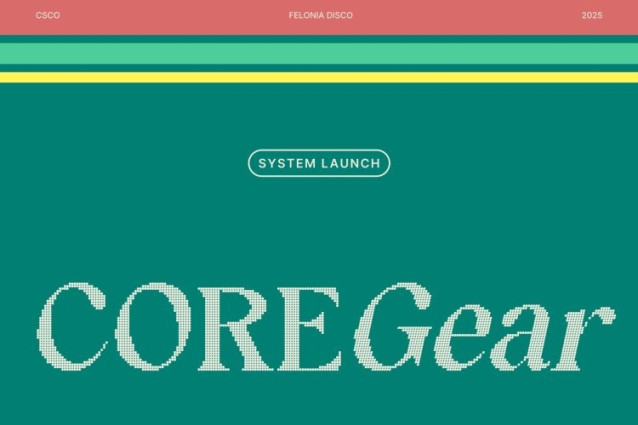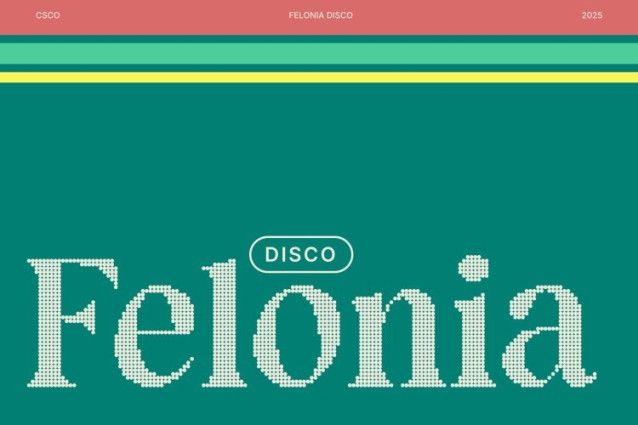
Felonia Disco Font
Felonia Disco Font This is a classic display font built with bold retro curves and decorative shapes that echo the vibrant design styles of the 1970s. Its funky silhouettes and expressive flow bring a sense of nostalgia, making it perfect for projects that aim to celebrate vintage charm with a playful twist.
Playful Curves with Energetic Personality
The font’s decorative curves create a lively and spirited character. Each letter carries a sense of motion and rhythm, allowing your design to feel joyful, energetic, and full of personality. This makes this font ideal for layouts that need a standout focal point with a fun, upbeat tone.
Disco Effect for Glamour and Dynamic Rhythm
Adding a disco effect transforms the typeface with shimmering highlights and visual sparkle. This glamorous finish enhances the retro feel while adding a modern, dynamic touch. The rhythmic shine gives every glyph a vibrant presence, amplifying its visual impact across both digital and print designs.
Perfect for Posters, Branding, and Creative Displays
This font thrives in applications where bold expression matters. Whether used for posters, branding identities, headlines, merchandise, or event graphics, this font delivers a captivating mix of vintage aesthetic, joyful energy, and dazzling presentation. It brings maximum visual impact to any project seeking a fun and unforgettable retro vibe.